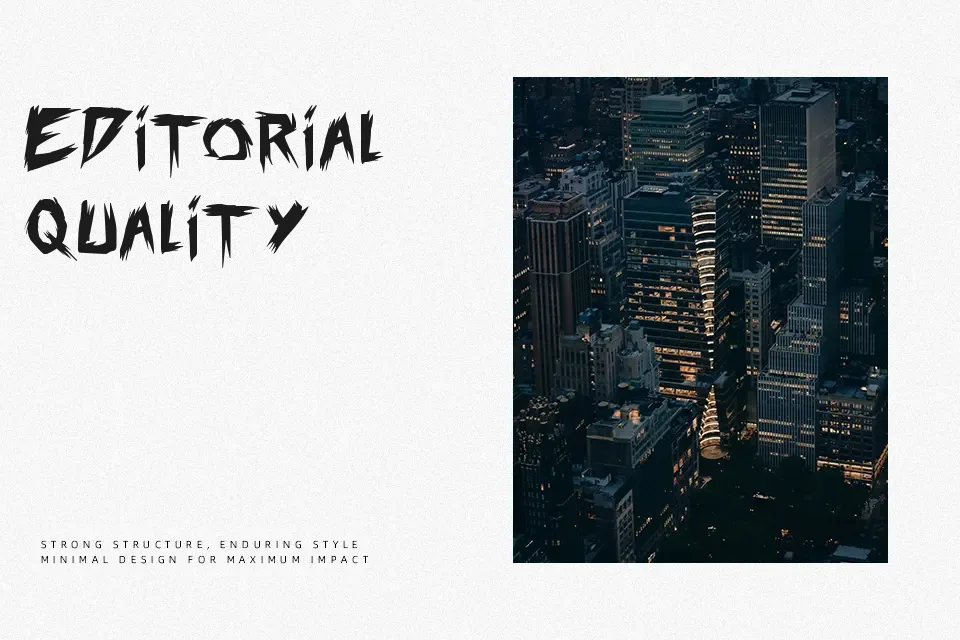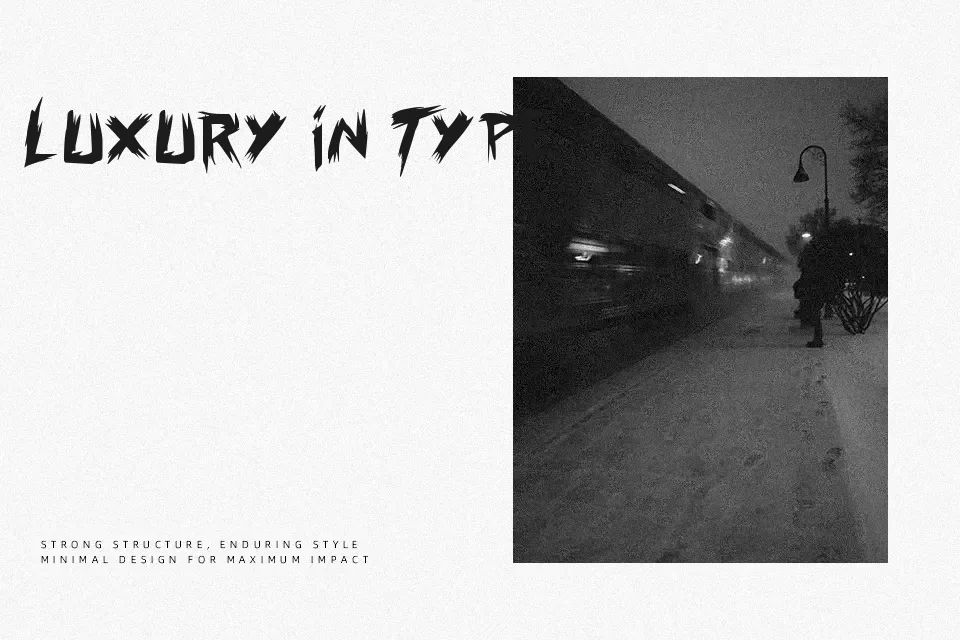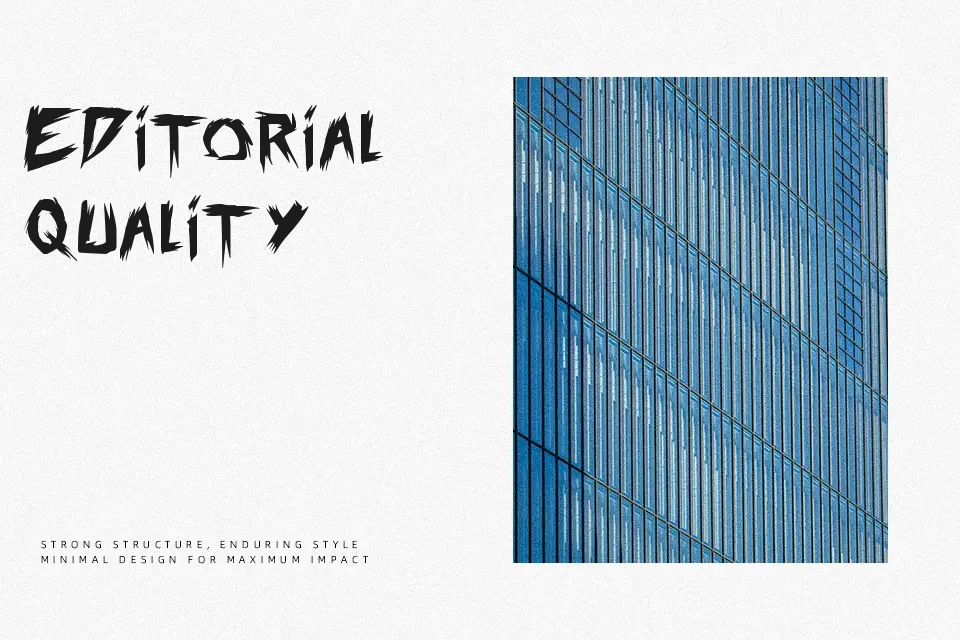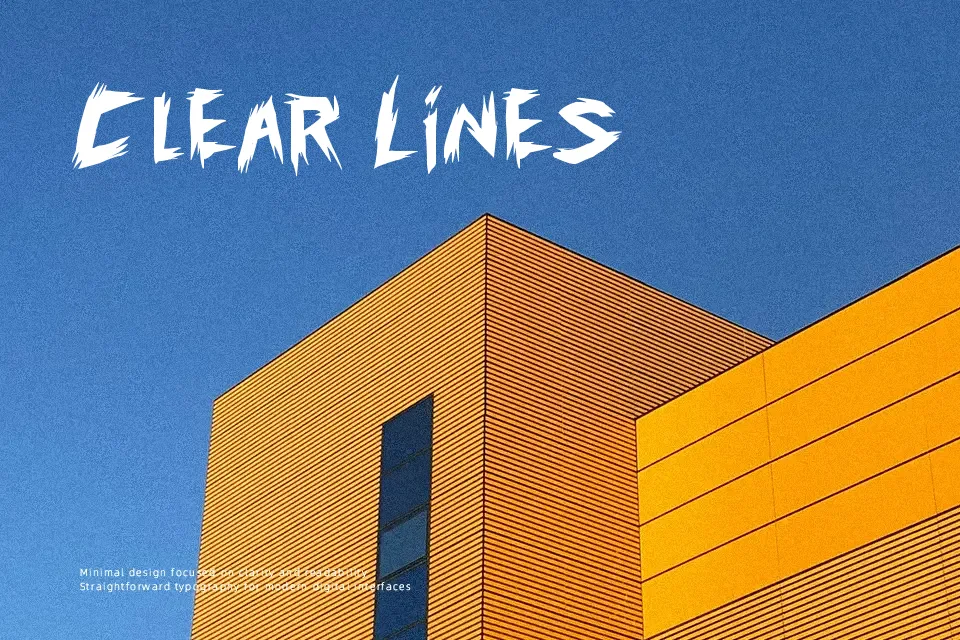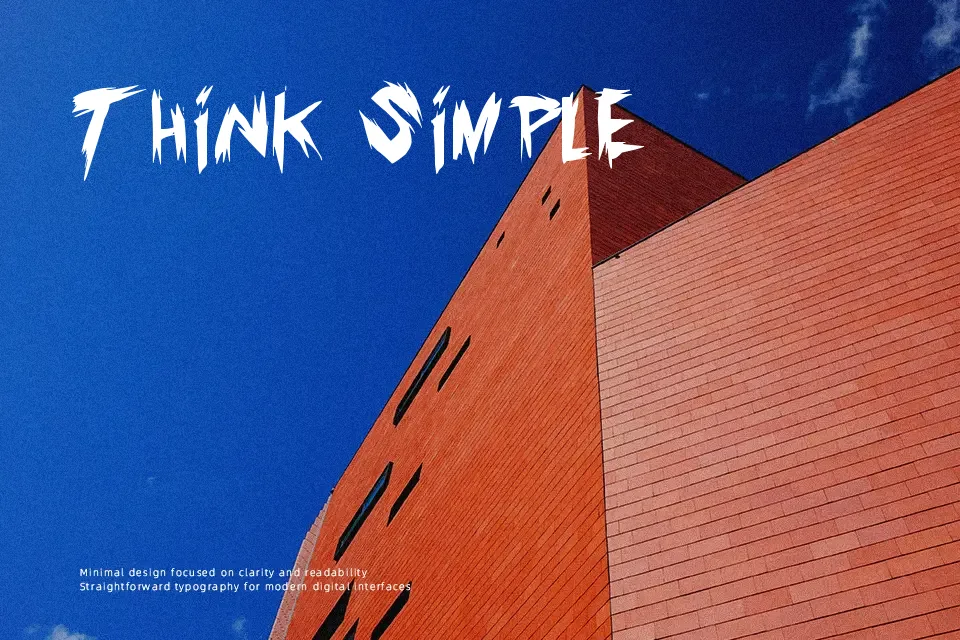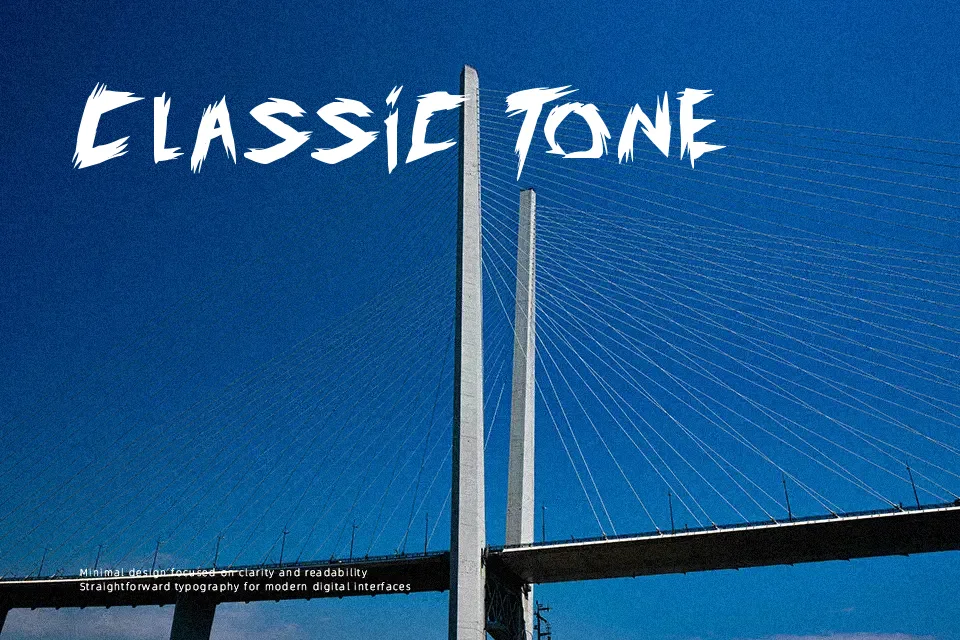
Old Evils Font
Old Evils Font uses irregular brush-like strokes, sharp edges, and uneven contours to create a distressed display texture. The characters appear moderately wide, with energetic shapes and spacing that reads best when given room in short lines. Uppercase letters carry the strongest visual weight, while the visible numerals and punctuation follow the same rough treatment. It works well for dramatic titles where texture matters as much as wording. The expressive outlines retain their impact at poster scale, but small text and dense settings can become difficult to scan.
Best For: horror film posters,comic book covers,Halloween event graphics,music artwork
Perfect for film, halloween, and headline, with a dark and brush style.